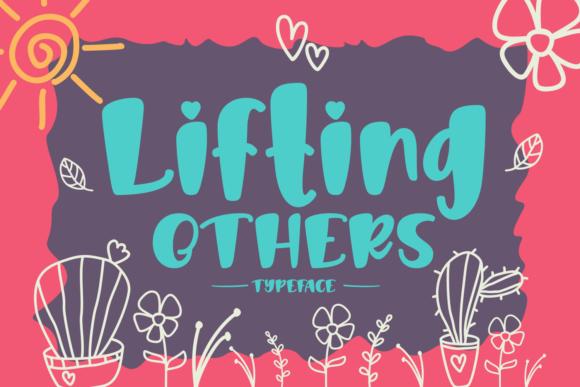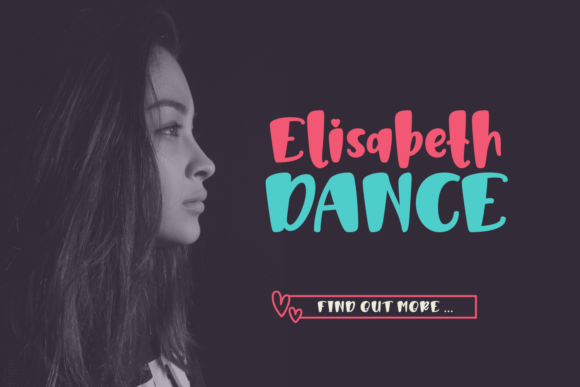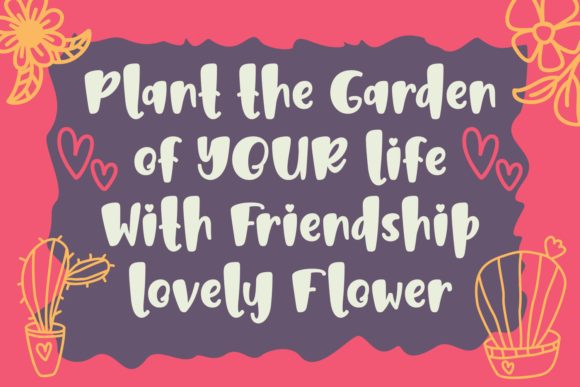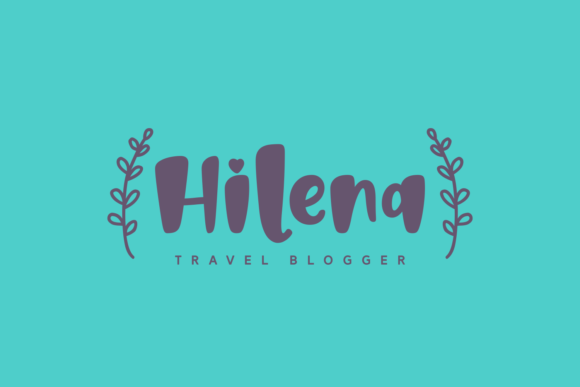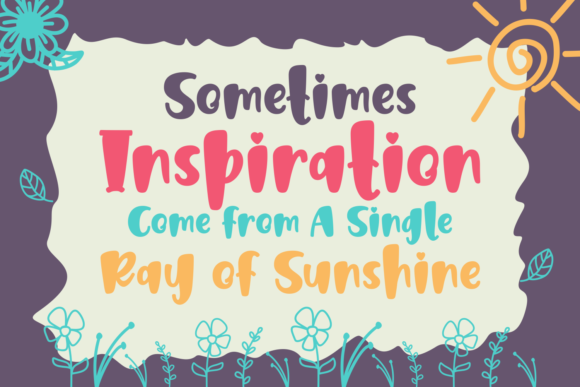
Lifting Others Font
About Lifting Others Font
Lifting Others is a beautiful, inspirational font with adorable elements. Use it for any design project that needs a personal touch.